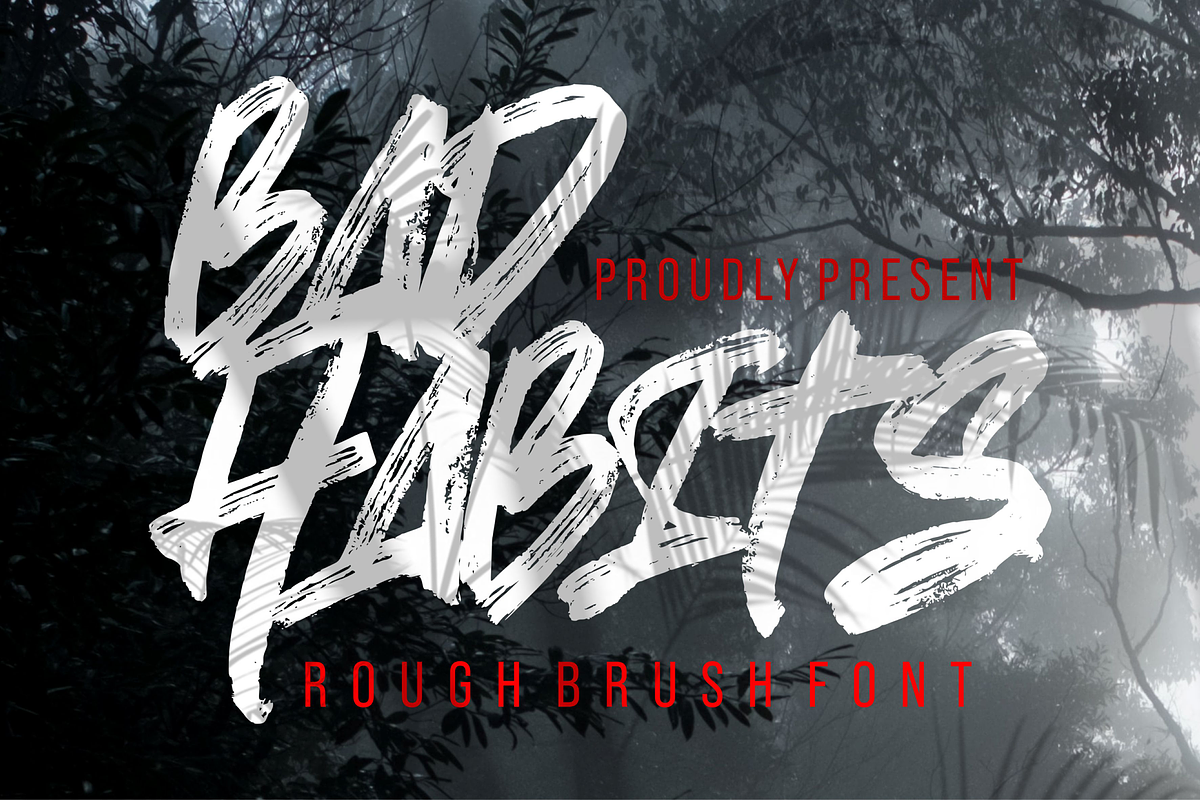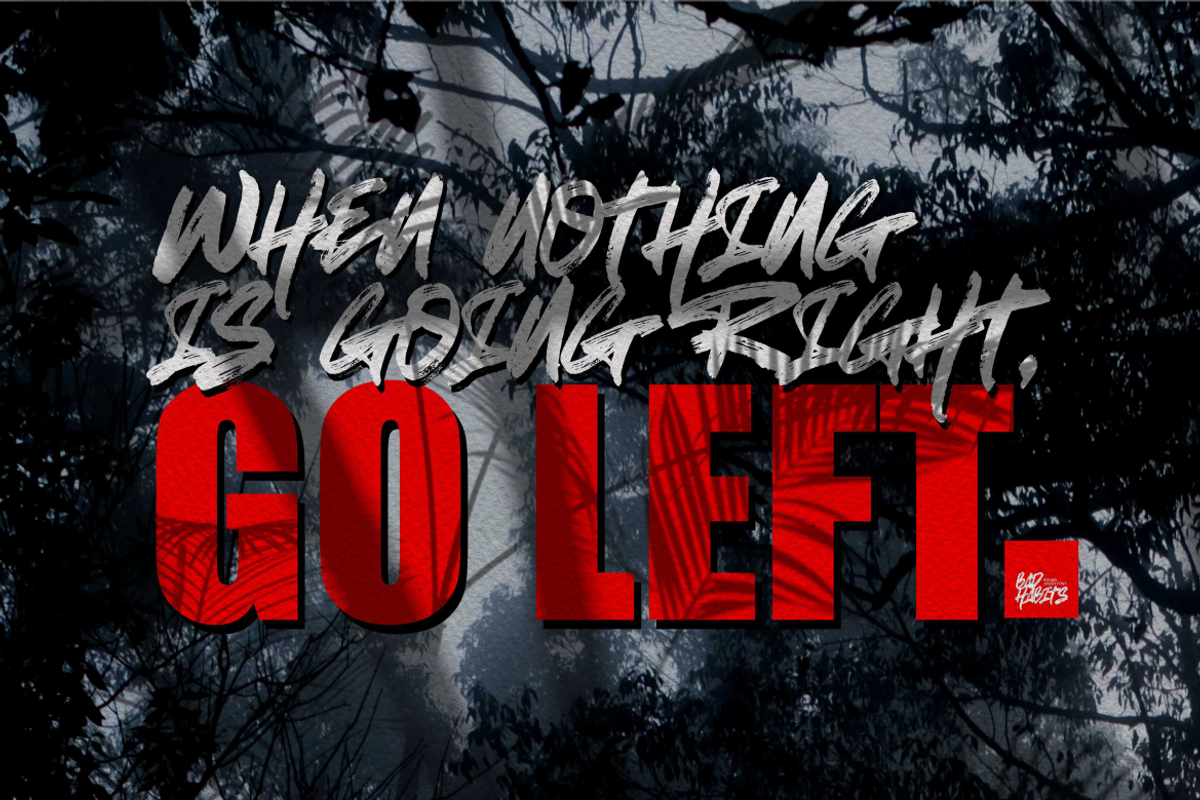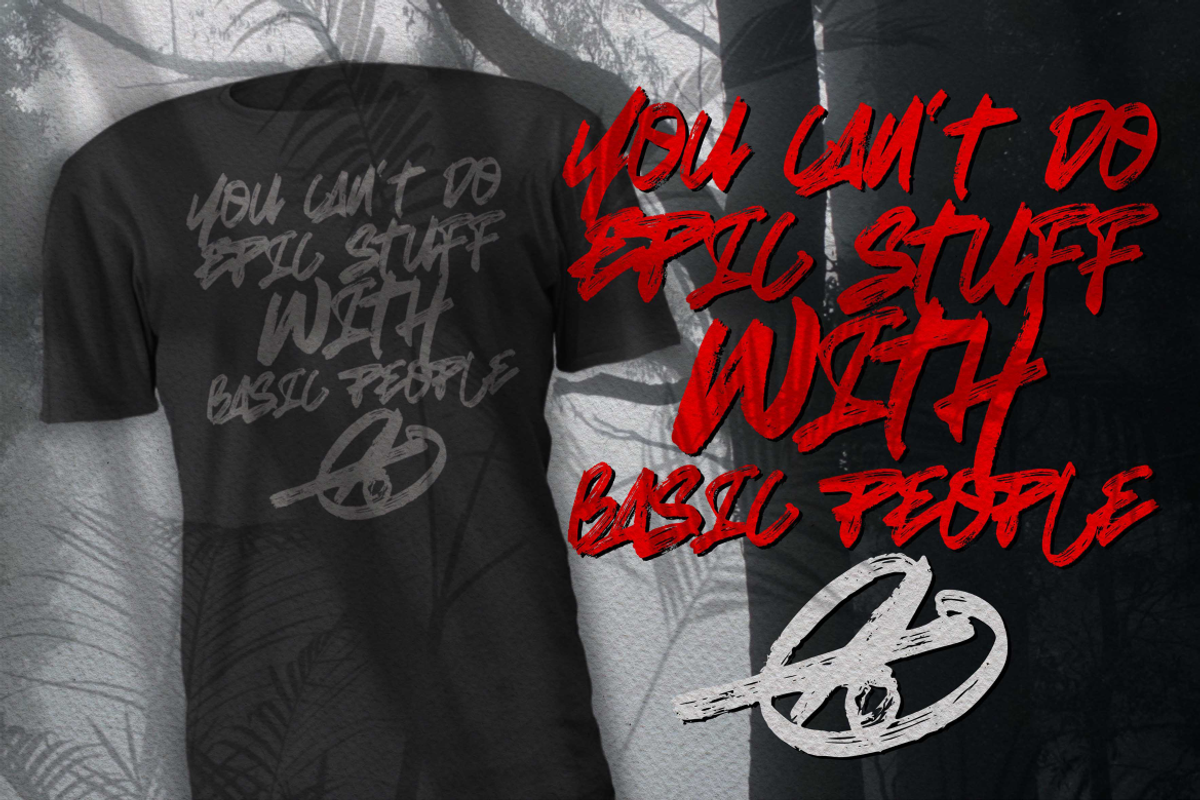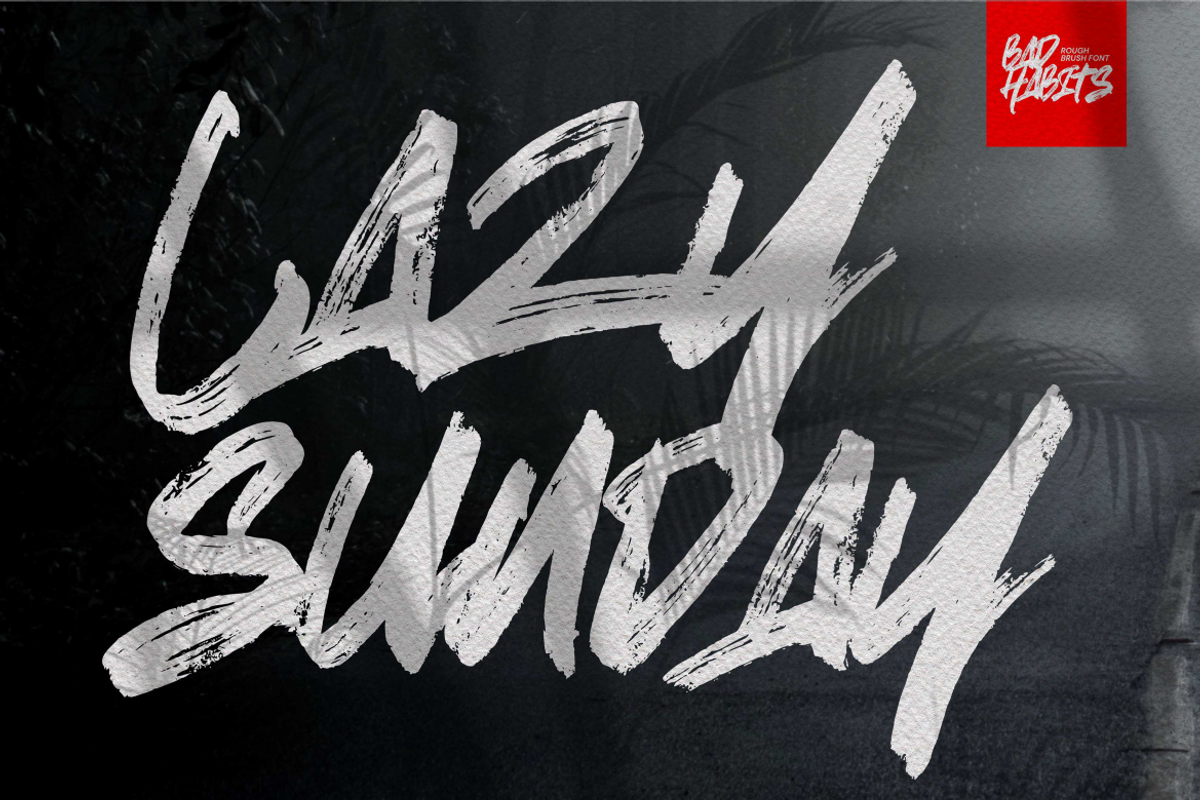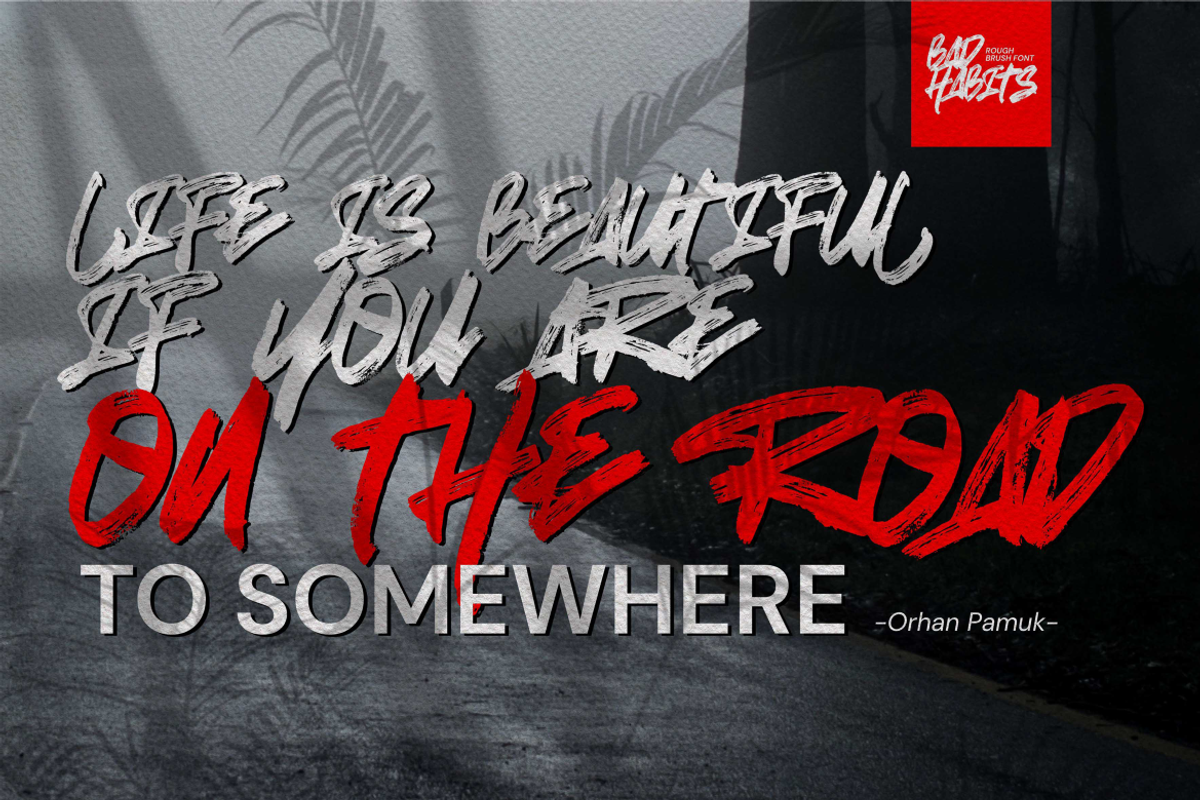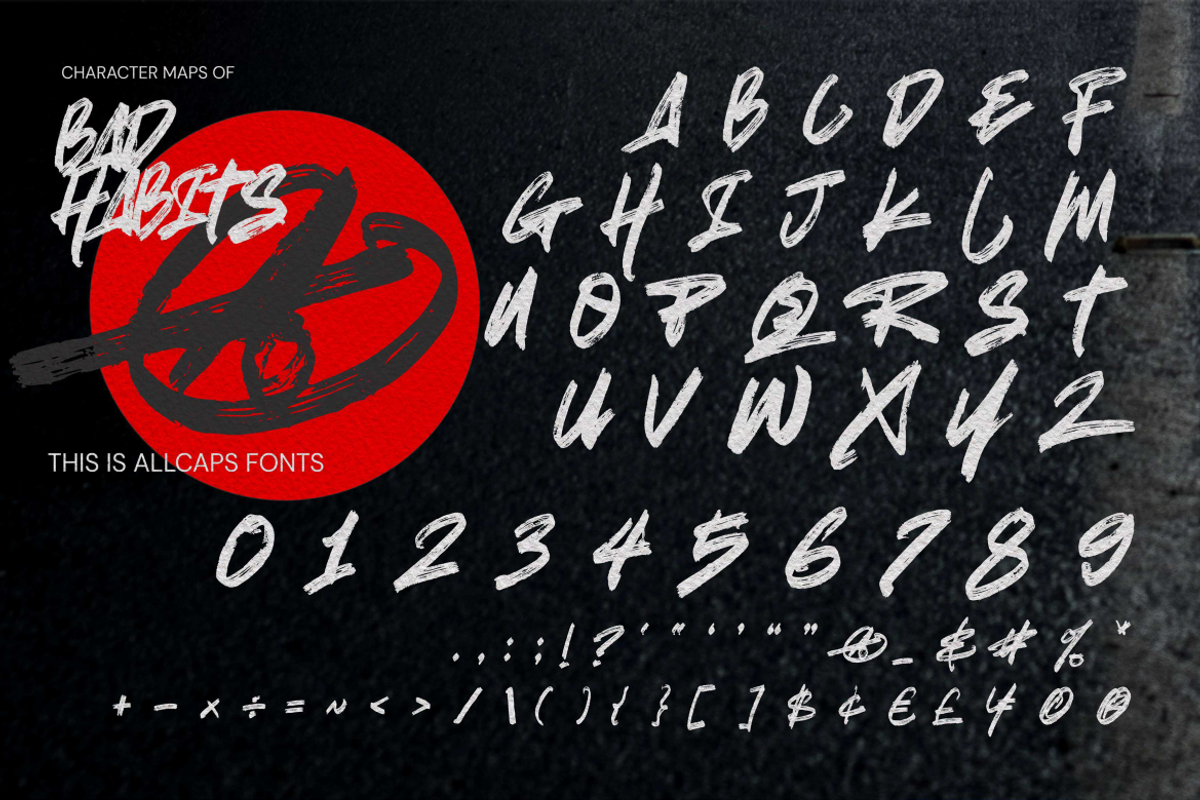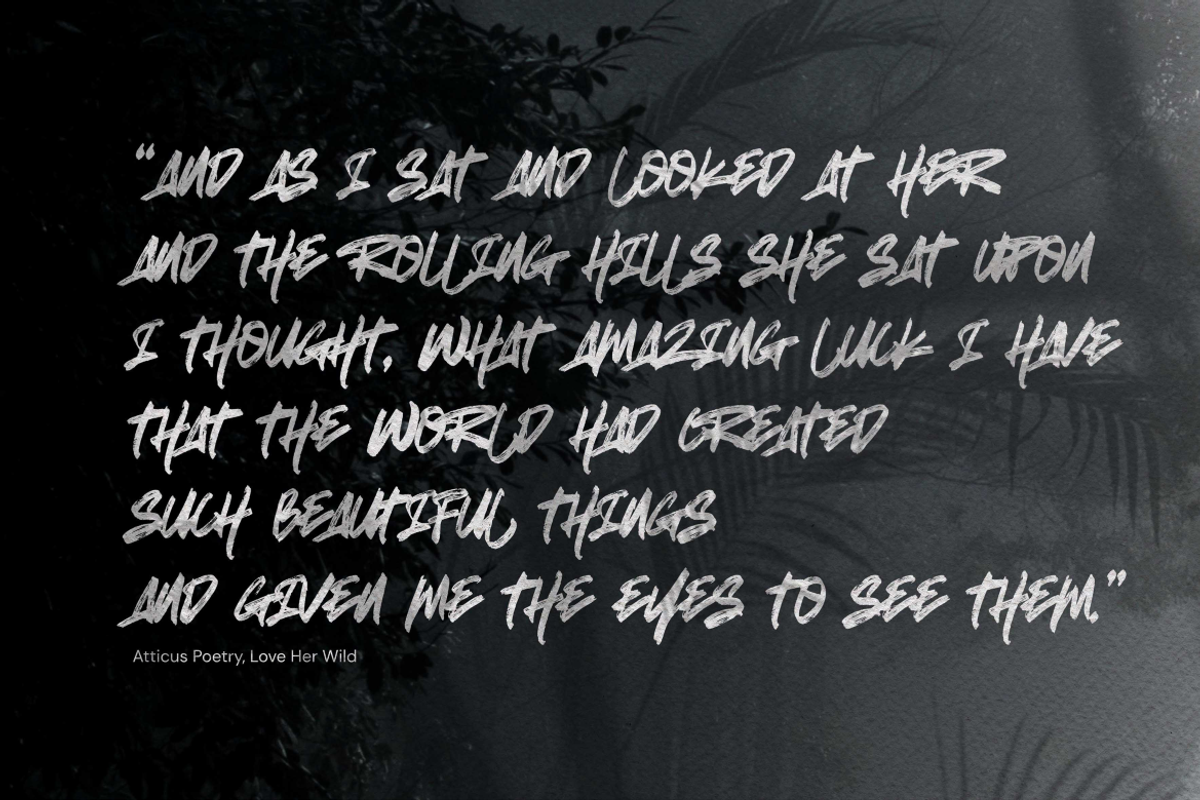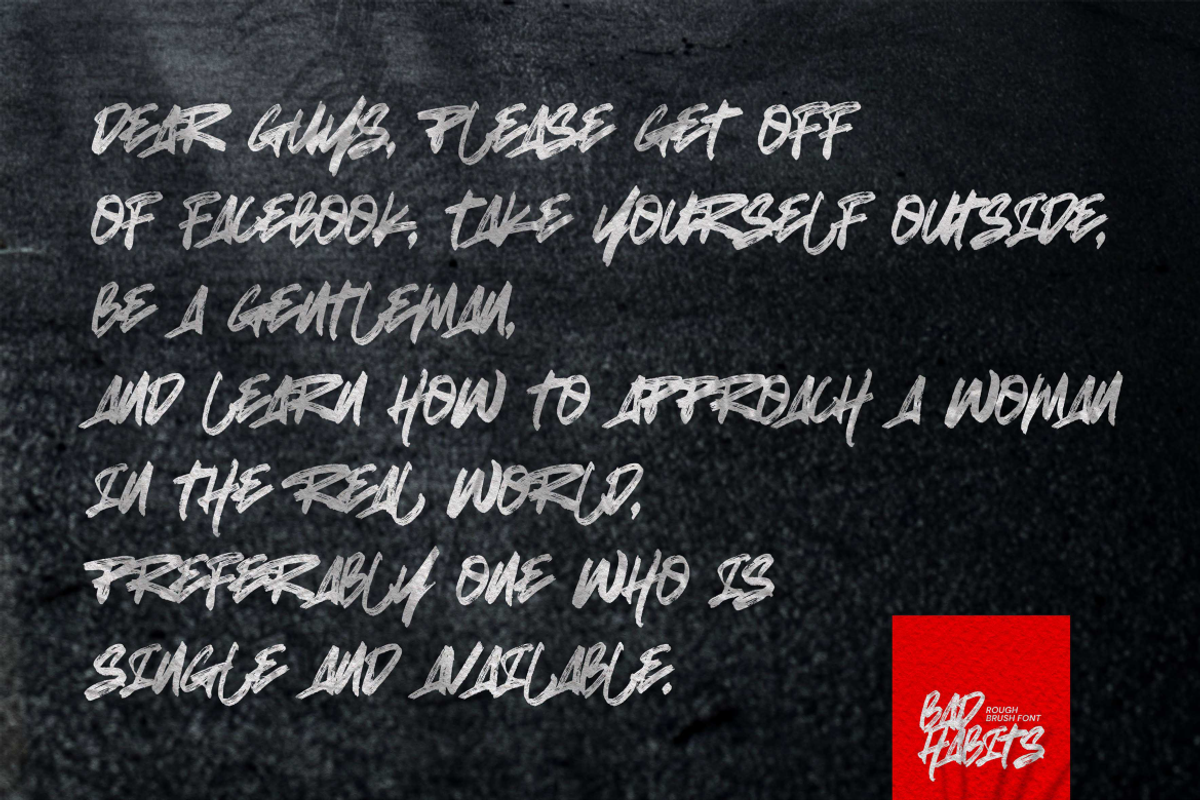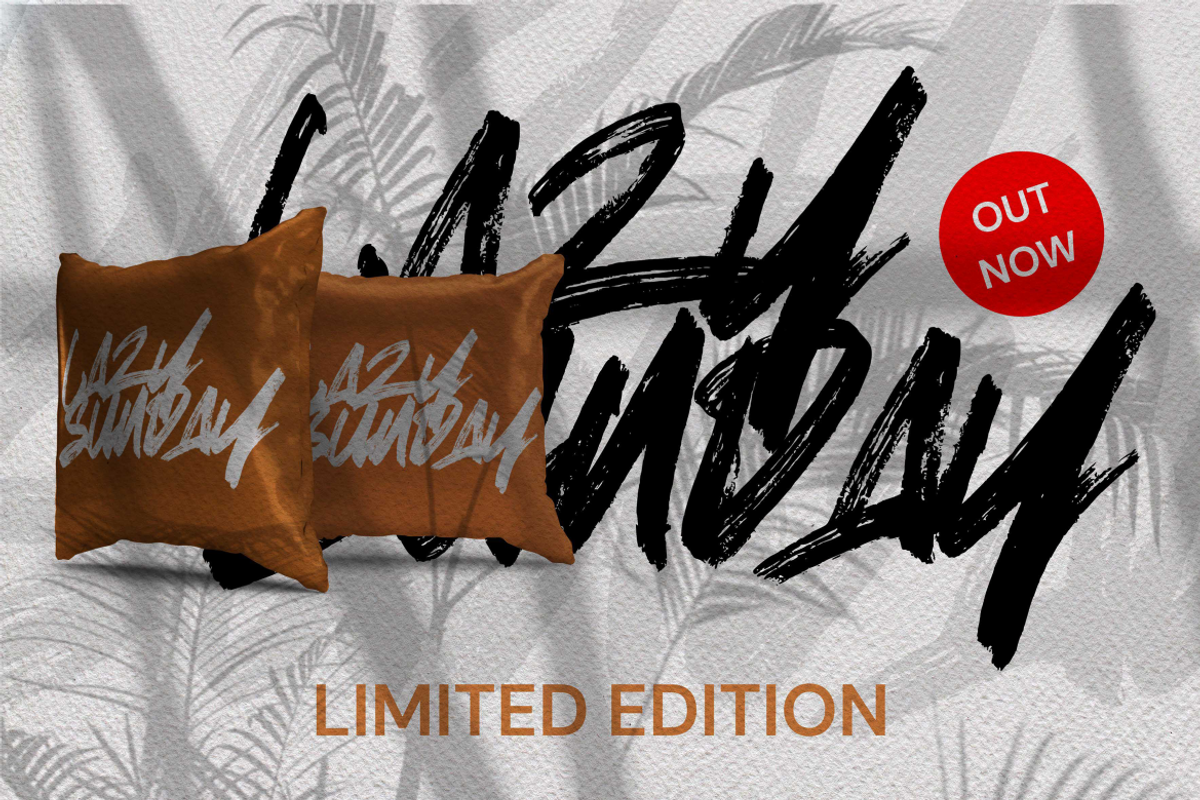
Bad Habits - Rough Brush font
Bad Habits - Handwritten Brush font with a Rough style and dramatic movement. This font is great for your next creative project such as logos, printed quotes, invitations, cards, product packaging, headers, Logotype, Letterhead, Poster, Label, and etc.